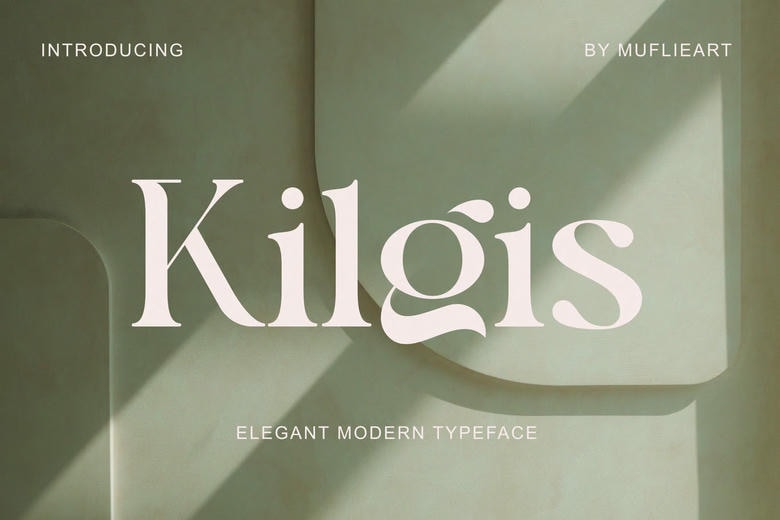
Kilgis Font
Kilgis is an elegant, beautiful and modern serif font. With its modern and minimalistic appearance, Kilgis brings a luxurious, chic and clean style to your projects such as websites, modern logos, brand identities, social media quotes, wedding stationery, magazines and various other needs!
Kilgis features unique and elegant capital letters from A to Z and is also equipped with unique alternate letters and ligatures, making Kilgis a beautiful font that can be adapted to different projects and works you want.
Kilgis Serif Font